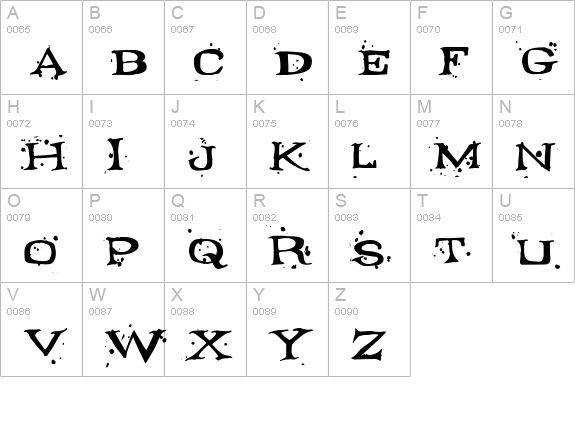
Fontocide font is a stunning display typeface that combines modern elegance with a touch of vintage charm. Its unique letterforms and intricate details make it a perfect choice for logo designs, branding projects, and creative displays. The font features a wide range of alternative characters and ligatures, allowing for endless customization possibilities. What sets Fontocide font apart is not only its exceptional design but also the fact that it is available for free. Yes, you heard it right! This beautiful font can be downloaded at absolutely no cost from FontsMarket.com. So, whether you're a designer looking to add a stylish touch to your projects or a business owner in need of a distinctive logo, Fontocide font is the perfect choice for you. Download it now and unleash your creativity with this exquisite typeface.